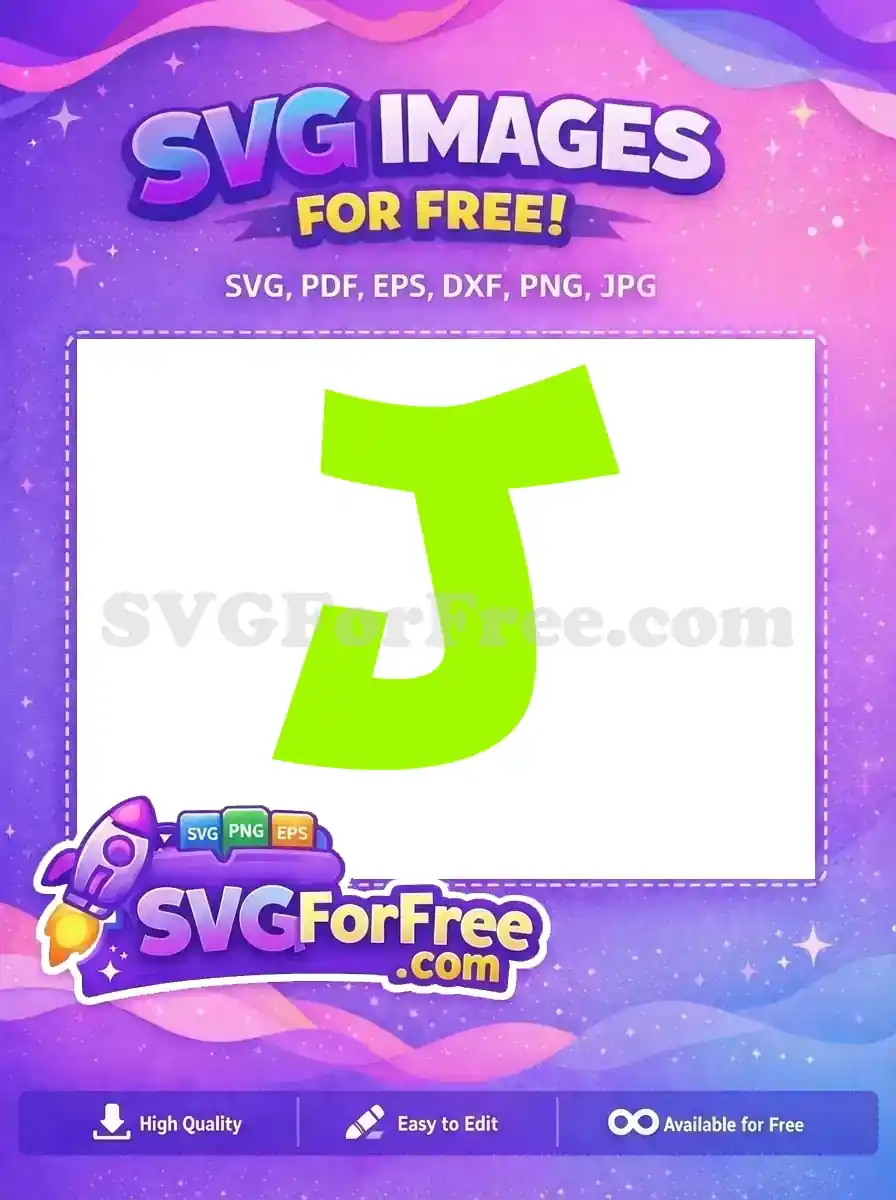
Free Lime Green Font Free Letter J Alphabet Free SVG – Instant Download
Plain green letter J variant, a versatile free design asset.
Free Lime Green Font Free Letter J Alphabet Free SVG